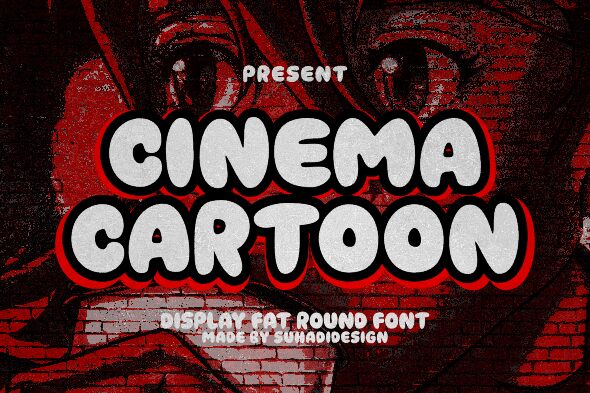
Cinema Cartoon
Cinema Cartoon font by Ahmad Suhadi is a free display typeface with an approachable style and fun touch. It mixes in cartoon elements that make it look friendly for everyone with a whimsical feel, bubbly characters, and suitable spacing. The fully retro-inspired design has a bold presence that can never go unnoticed on any medium to which it is applied.
Use this typeface in posters, comic books, coffee labels, game interfaces, mobile apps, logos, and branding. It works flawlessly on book covers displayed at shops or maybe even just as special title fonts for your social media profiles!